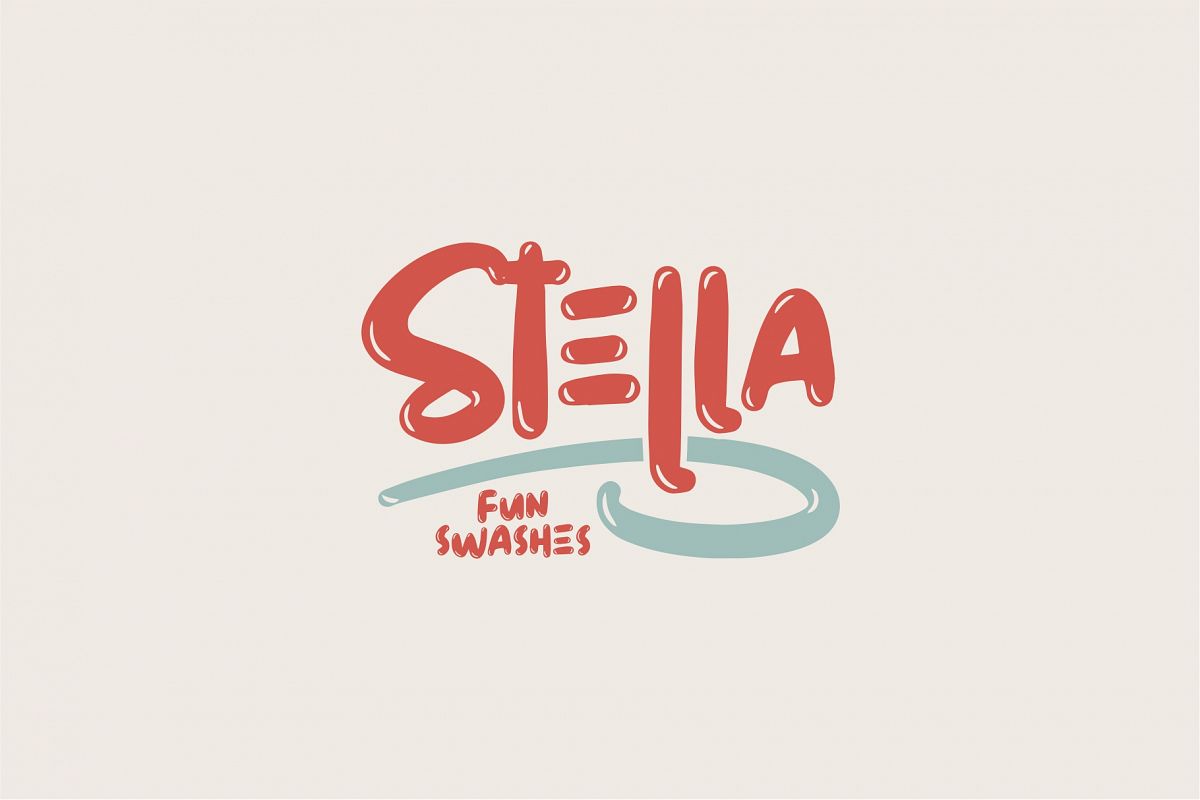
STELLA Fun Fonts
Introducing StellaStella born from bold and fun style fonts. With many differenst swashes you need for the great work ever. That's available on other file from letter A-Z and a-z.Versatile for design poster, logo, branding, label, quote, headline profil, banner, t-shirt design, packaging, magazine, brochure, and many more your amazing work with this fonts.Features: